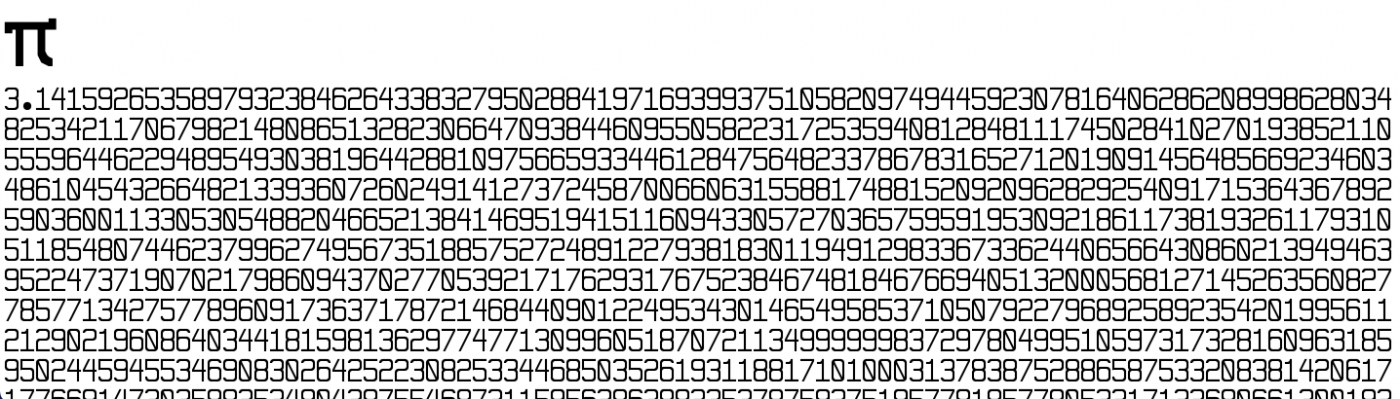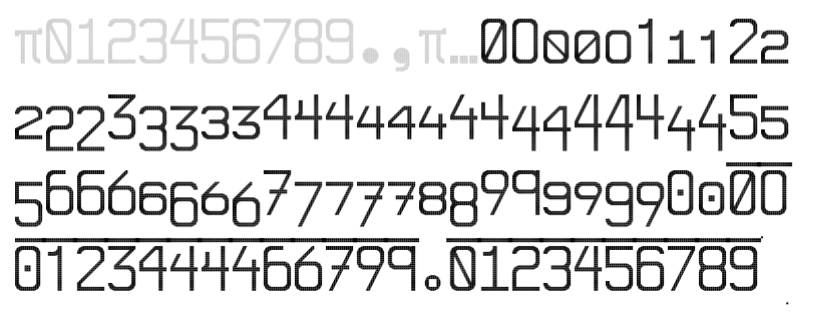
• Happy Pi Day! I made this FontStruction to celebrate it.
Happy Pi Day!
PitrixCTCG contains many alternate forms. More will be added later.
In addition to alternate forms, PitrixCTCG also provides mathematic presentational forms.
damn thats a lot of alts
@elliqvl I placed them all at the Private Use Area (Plane 0).